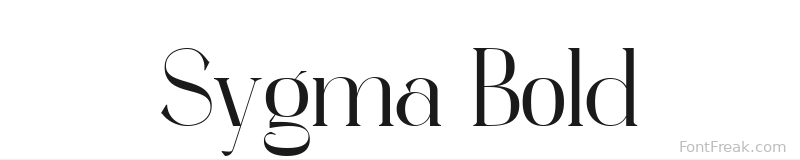
Sygma Bold
About Sygma Bold
Sygma Bold by MJType is a striking serif typeface that combines modern elegance with classic charm. Released in 2023, this font features a robust stroke weight and a balanced contrast that enhances readability while maintaining a sophisticated aesthetic. The letterforms exhibit a generous amount of spacing, allowing for clarity and visual appeal, making it an excellent choice for various design applications. The subtle decorative elements in the serifs add a touch of character without overwhelming the overall design, which helps Sygma Bold stand out in any project.
This versatile font is perfect for a range of use cases. It works beautifully on wedding invitations, where its refined style can convey a sense of elegance and celebration. Additionally, Sygma Bold is ideal for movie posters, capturing attention and evoking excitement while maintaining a professional look. Restaurant menus can benefit from this font as well, as it communicates a sense of quality dining experience through its stylish yet readable design. Furthermore, small business owners looking to create impactful branding materials will find Sygma Bold to be an excellent choice for logos, flyers, and promotional content.
Targeted towards graphic designers, content creators, and small business owners, Sygma Bold offers a distinctive option for those seeking to enhance their visual narratives. The Sygma Bold font free download allows creatives to incorporate this unique typeface into their projects without any hassle. Its ability to blend contemporary aesthetics with timeless design principles makes Sygma Bold a standout choice in the world of typography, ensuring that your creations will leave a lasting impression. Whether for digital or print, this font is sure to elevate any design project.